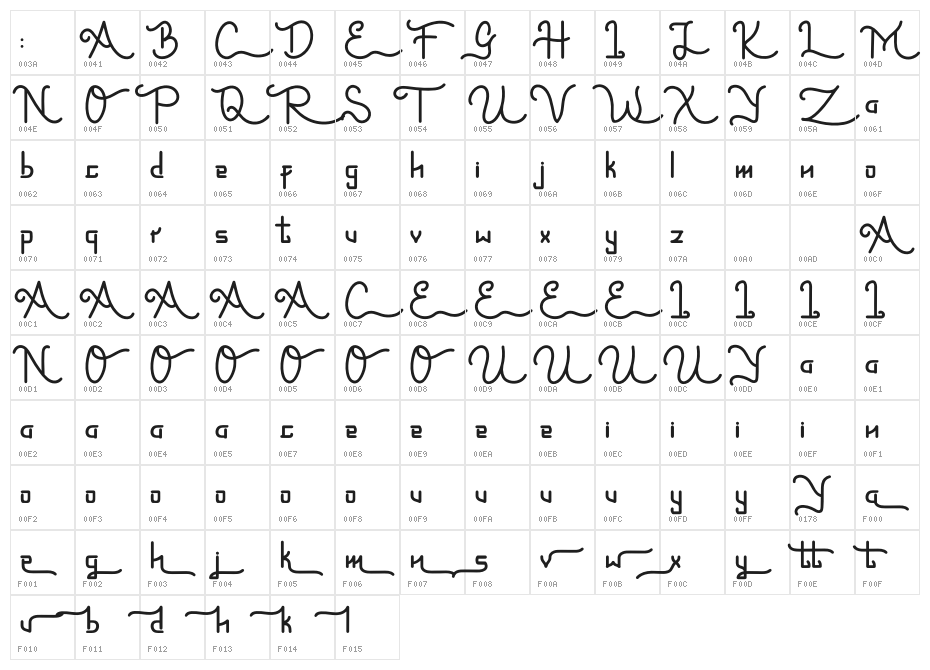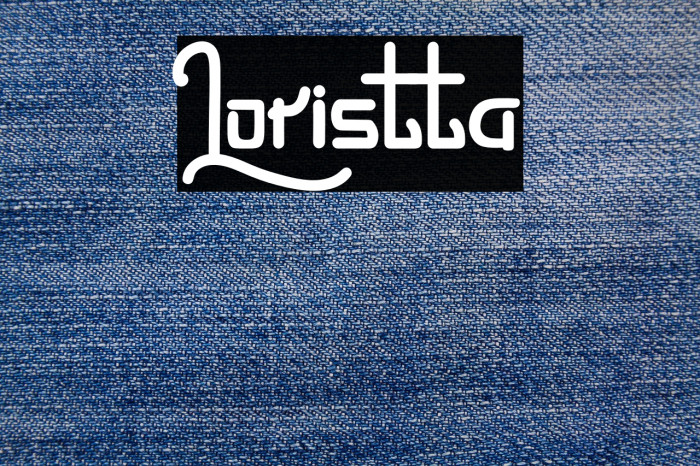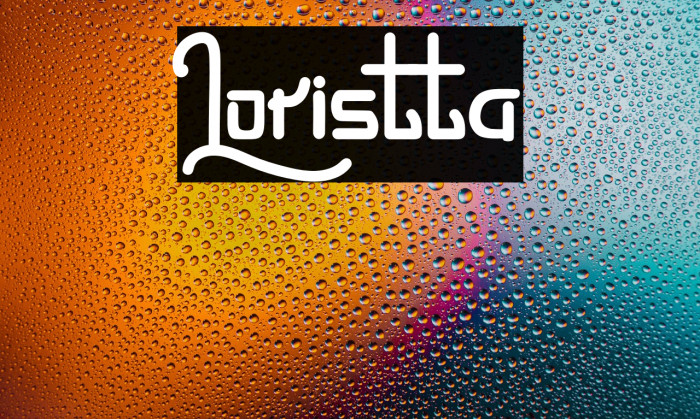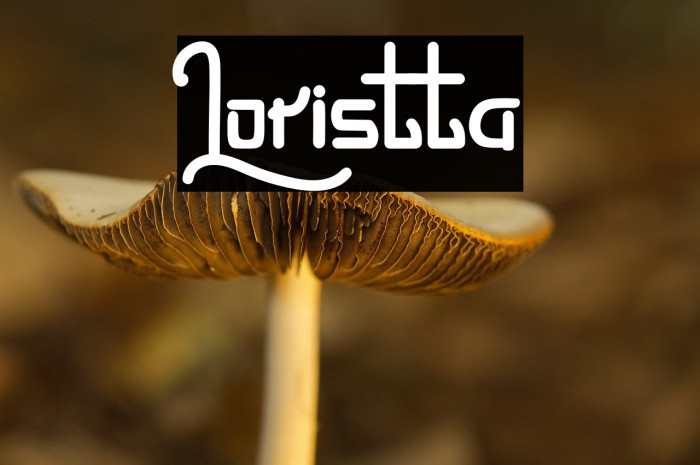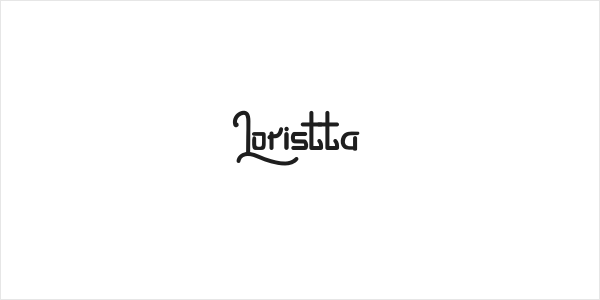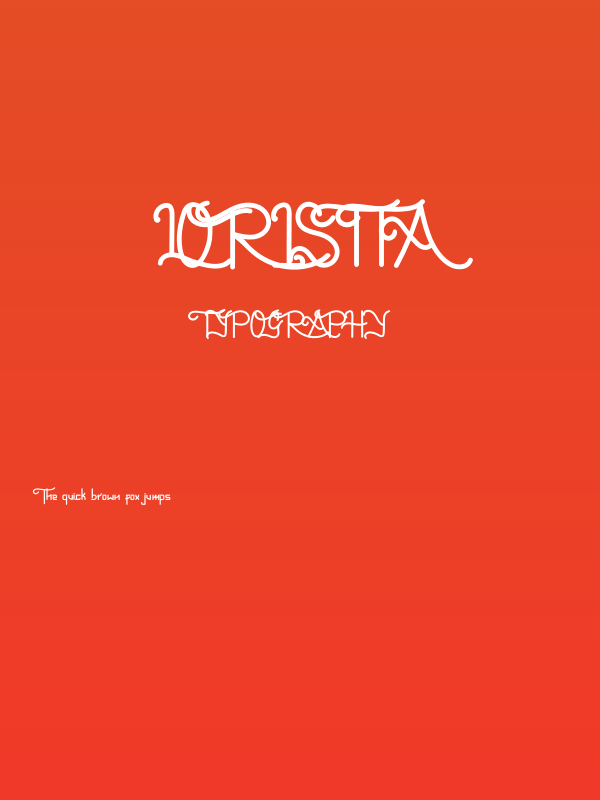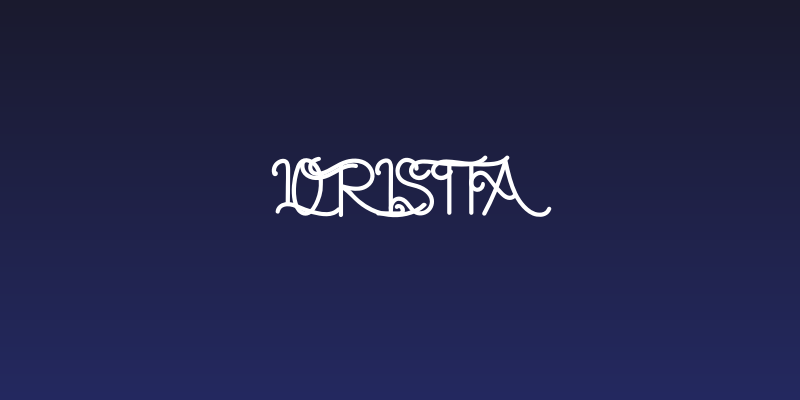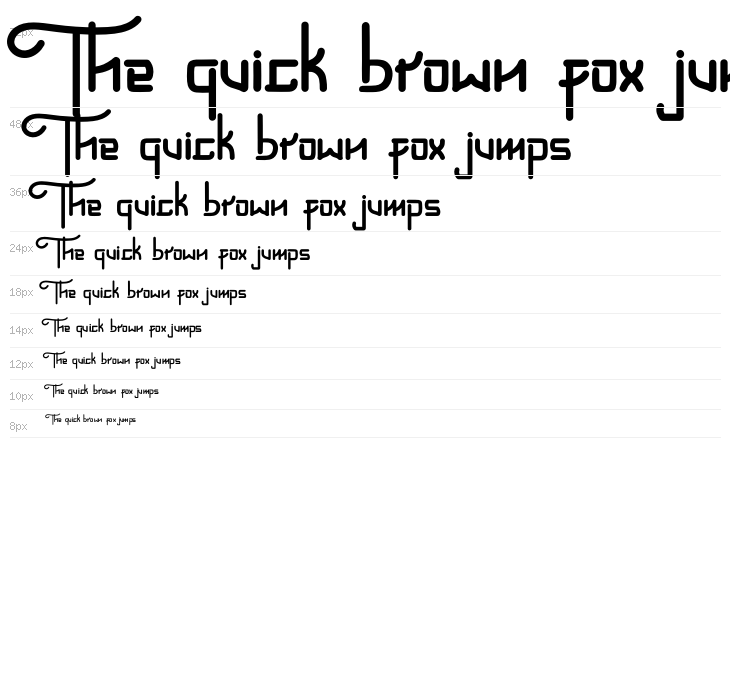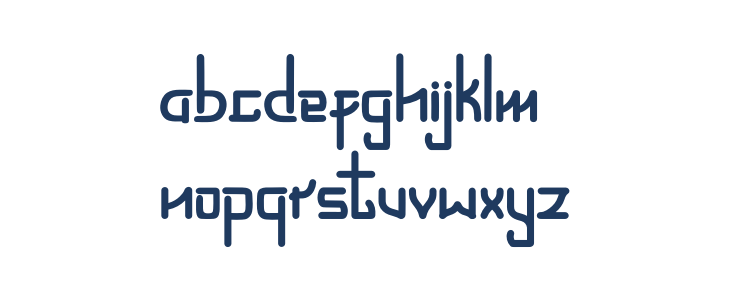
Loristta Font
Loristta Description
This font features a unique blend of script and geometric styles. The uppercase letters have a flowing, cursive quality with interconnected strokes, giving them an elegant and artistic appearance. In contrast, the lowercase letters are more structured and geometric, with a modern and clean look. The combination of these styles creates a dynamic and versatile typeface. The font is characterized by its medium contrast in stroke thickness, providing a balanced visual weight. The character spacing is normal, ensuring readability while maintaining its decorative appeal.
| Overall Style | Modern Decorative |
| Use Case | Logos, Headlines, Artistic Projects |
| Proposed Projects | Ideal for branding projects, artistic posters, and unique invitations. |